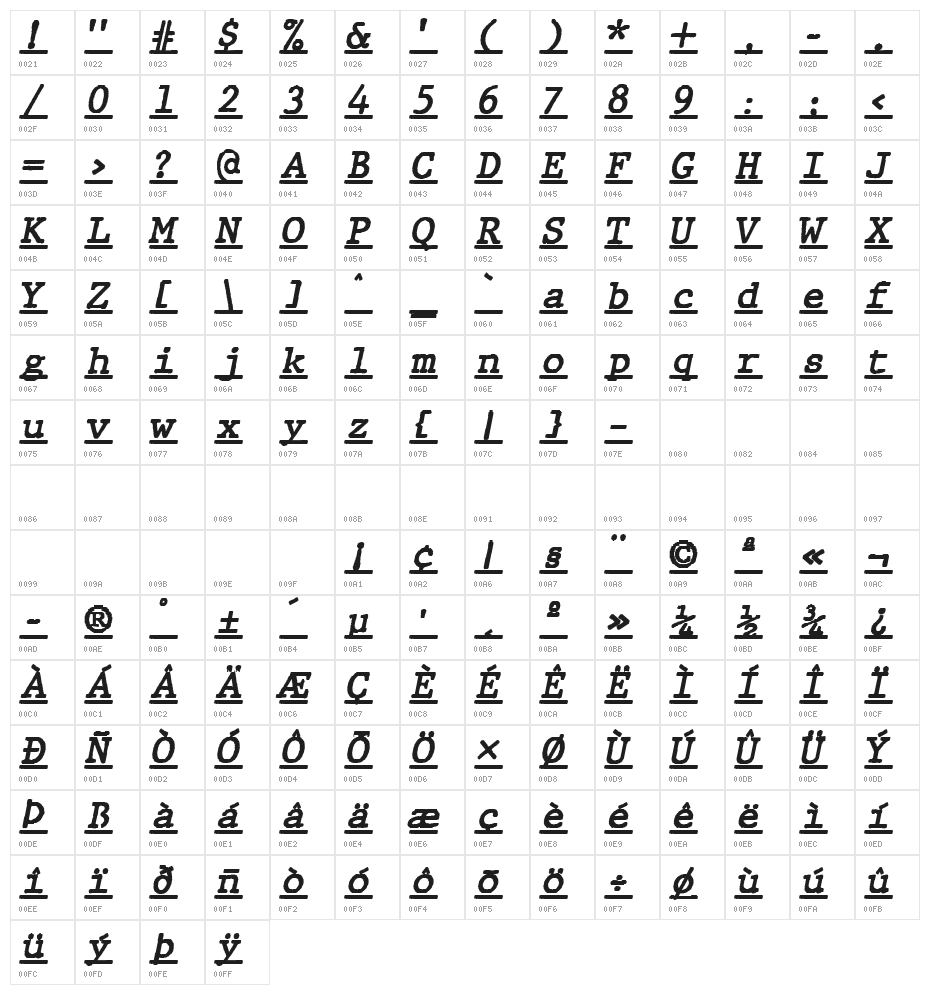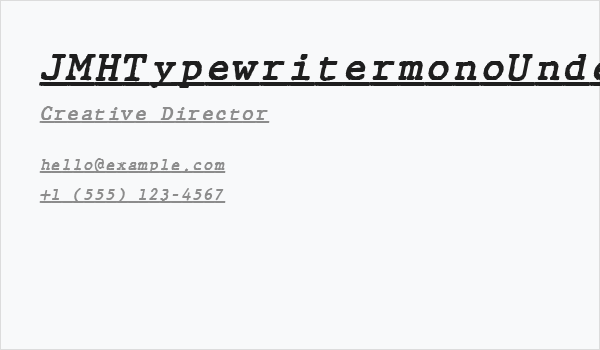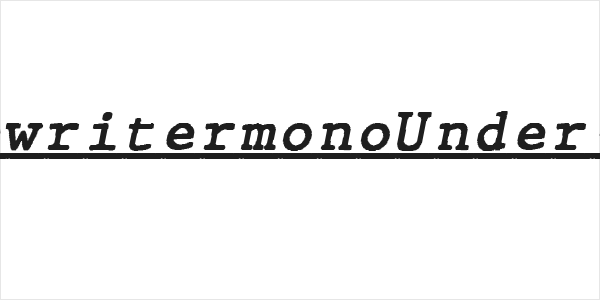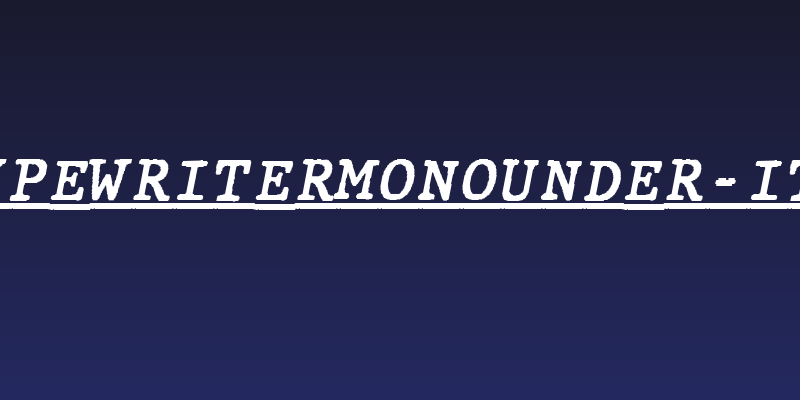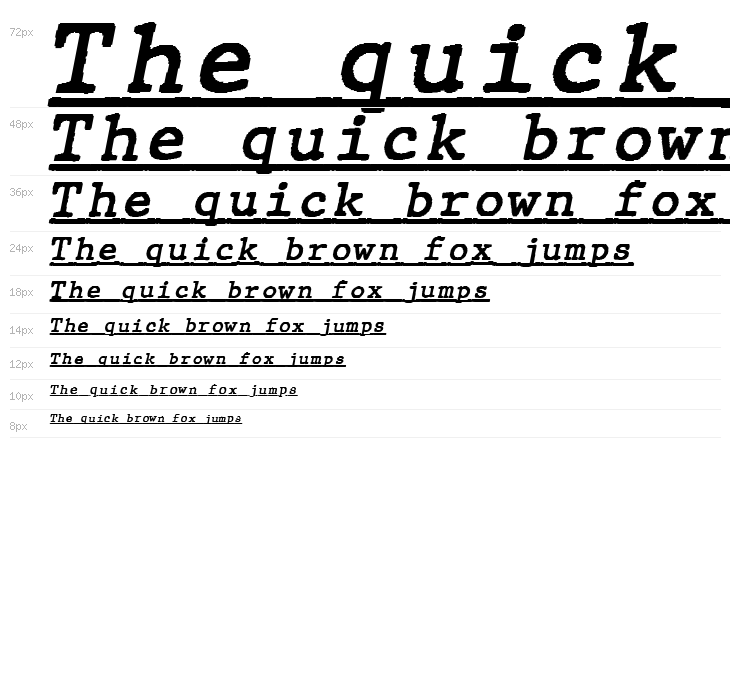
JMHTypewritermonoUnder-Italic Font
JMHTypewritermonoUnder-Italic Description
This typeface exudes a classic typewriter aesthetic with a monospaced structure, ensuring each character occupies the same horizontal space. The italic style adds a dynamic slant, enhancing the traditional typewriter feel with a modern twist. Each letter is underlined, providing a unique and distinctive appearance. The font maintains a consistent weight, offering a balanced and uniform look across all characters. The numerals and special characters are designed to match the overall style, ensuring cohesion throughout. This font is perfect for projects that require a vintage or retro touch while maintaining readability and clarity.
| Use Case | Logos, Coding, Retro designs |
| Proposed Projects | Ideal for retro-themed designs, coding projects, typewriter art, and vintage branding. |